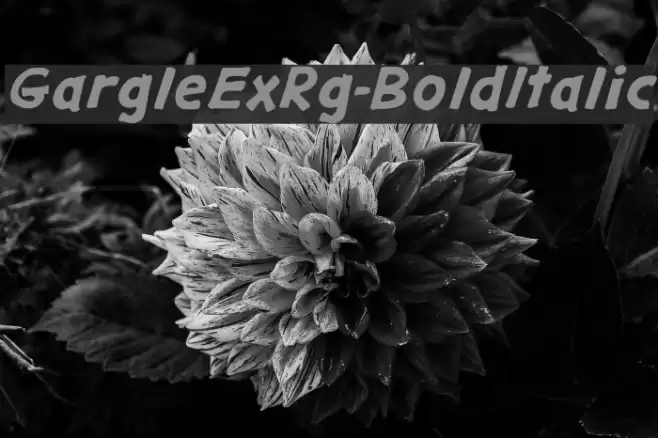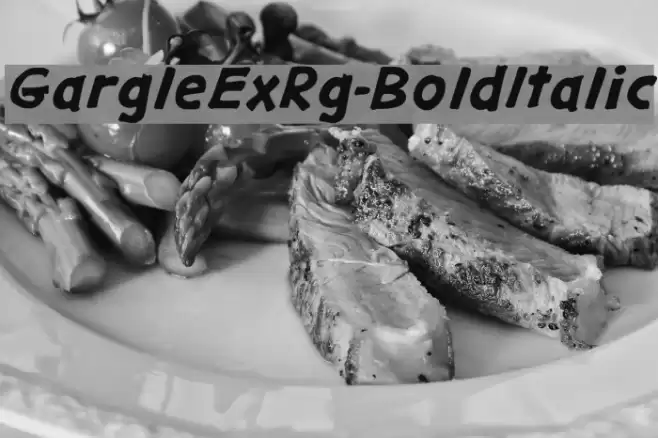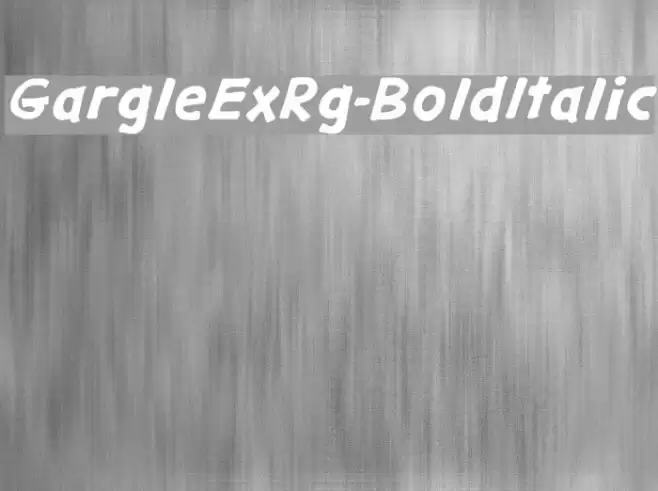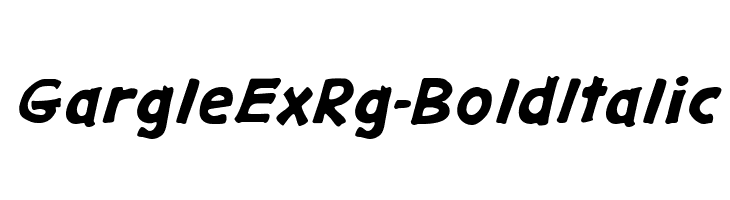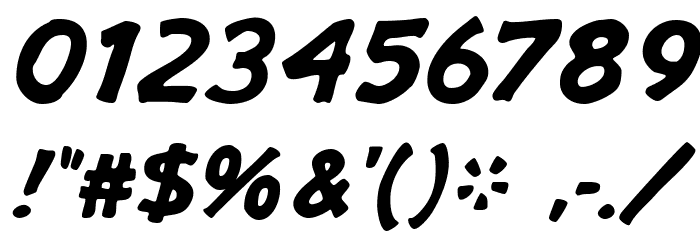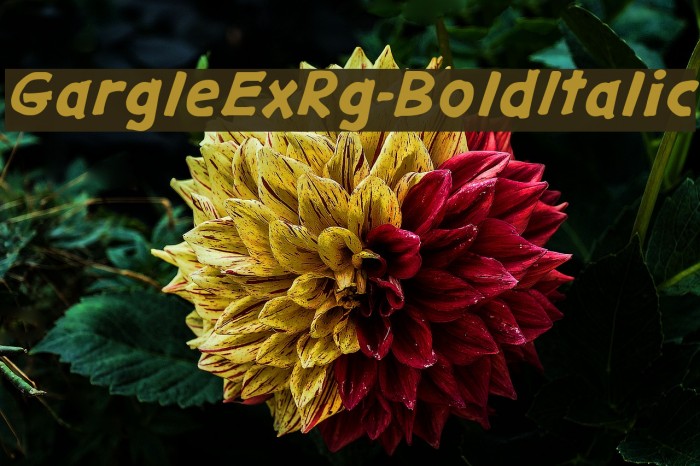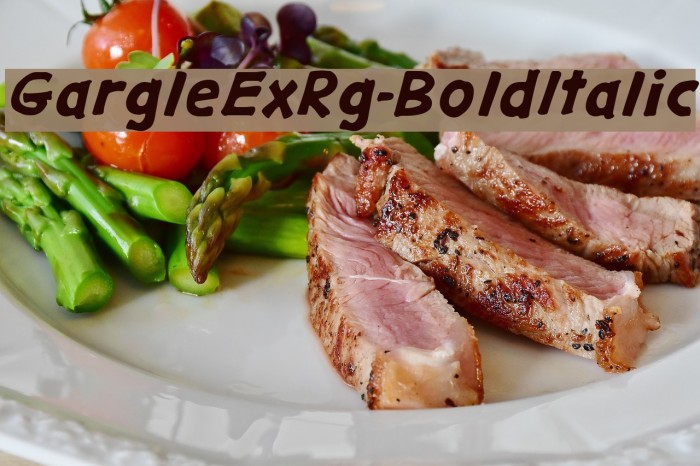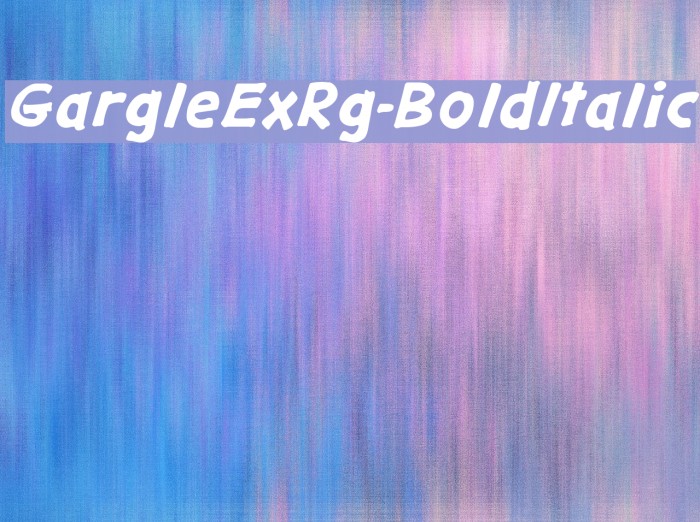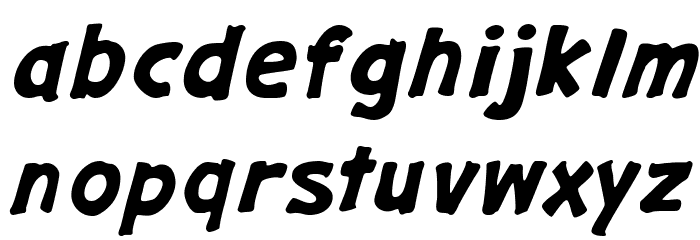
GargleExRg-BoldItalic
This font features a bold and italic style with a playful and dynamic appearance. The characters are slightly slanted, giving a sense of movement and energy. The strokes are thick and rounded, contributing to a friendly and approachable look. The uppercase and lowercase letters maintain a consistent style, with smooth curves and a uniform weight. The numbers and special characters are designed to match the overall aesthetic, ensuring cohesion across all elements. This font is ideal for projects that require a lively and engaging typeface.
A bold, italic font with a playful and dynamic style.
- Proposed Projects: Perfect for children's books, playful branding, posters, and creative advertising.
- Overall Style: Playful and Dynamic
- Use Case: Headlines, Logos, Posters